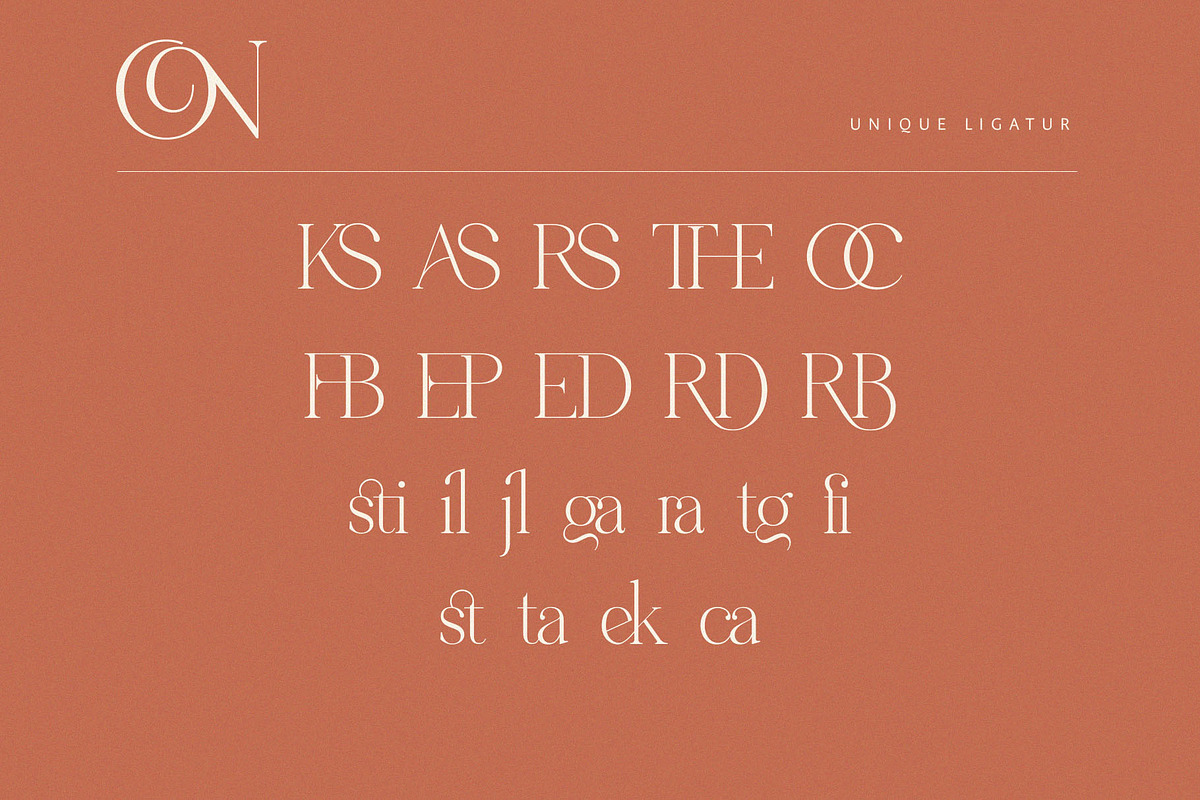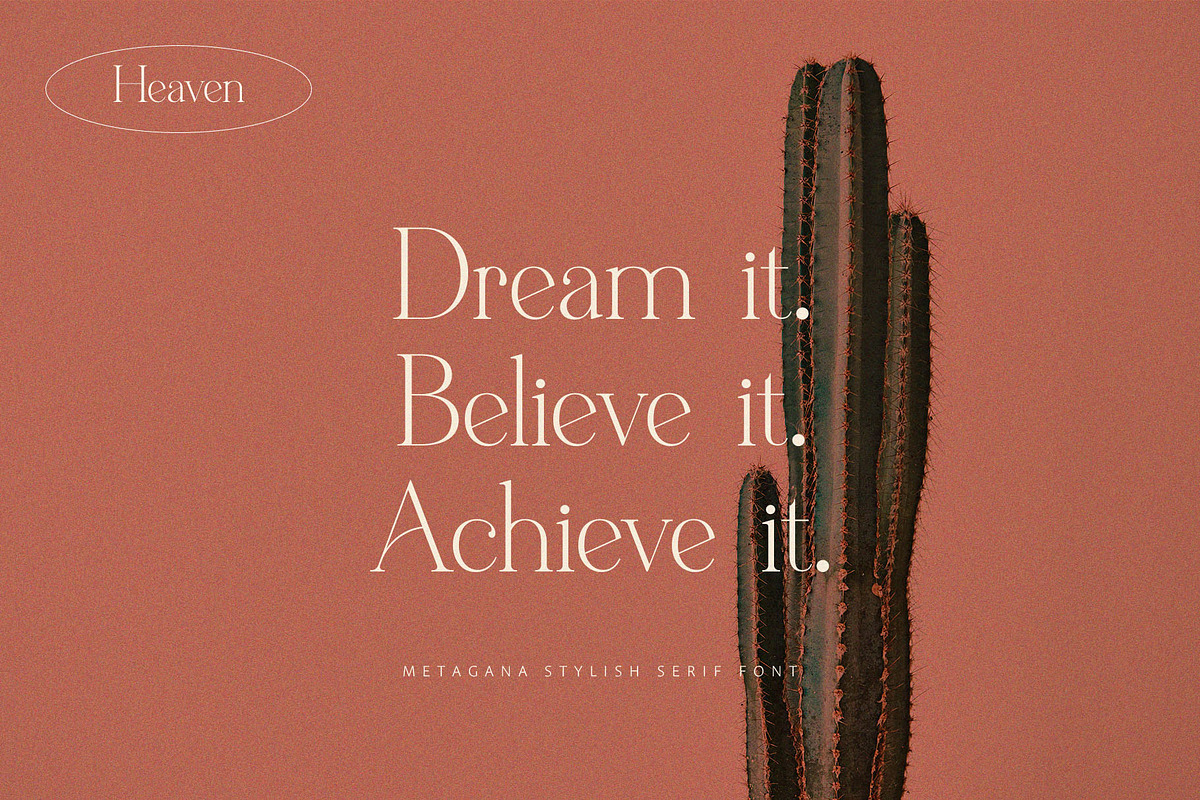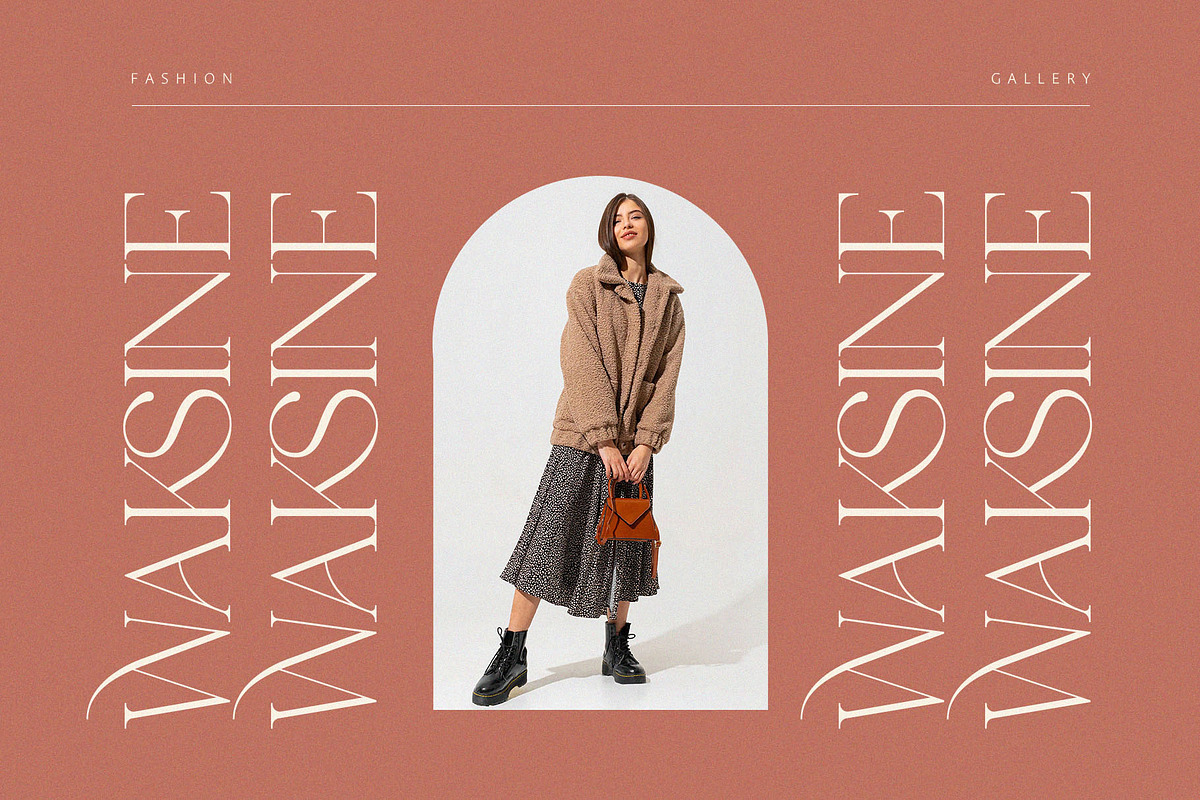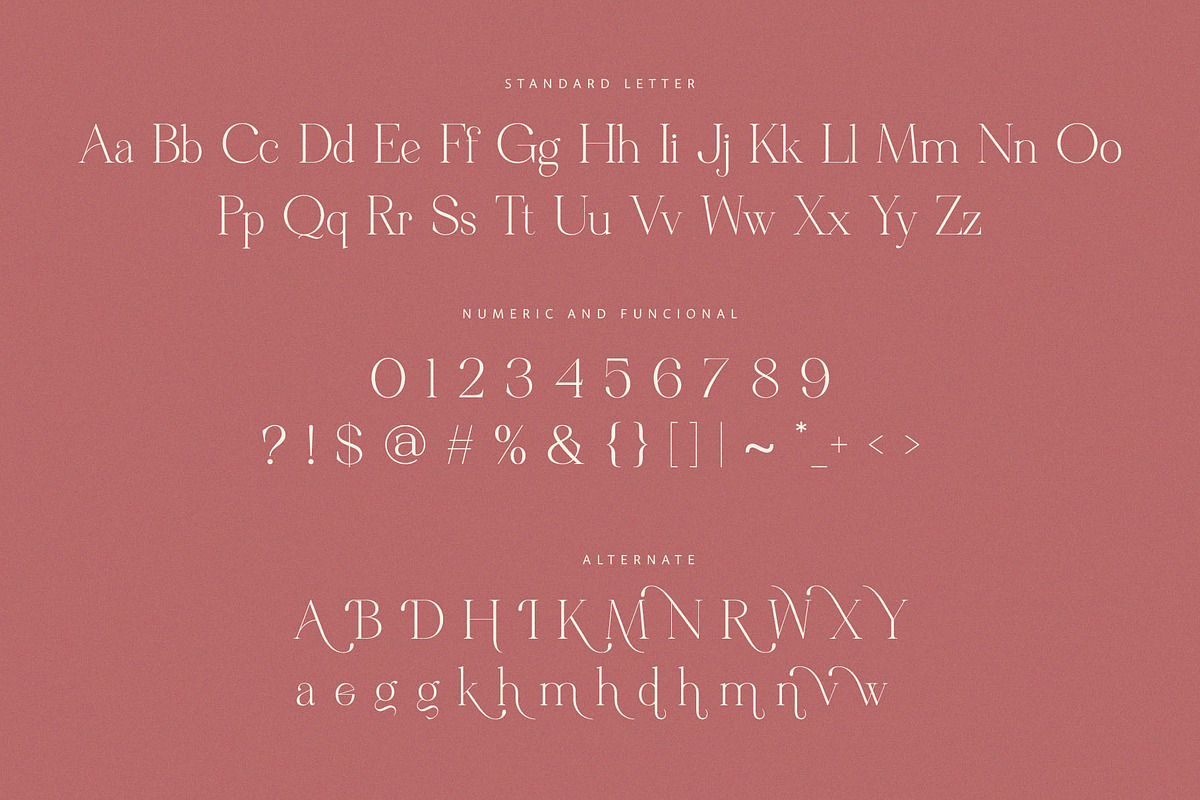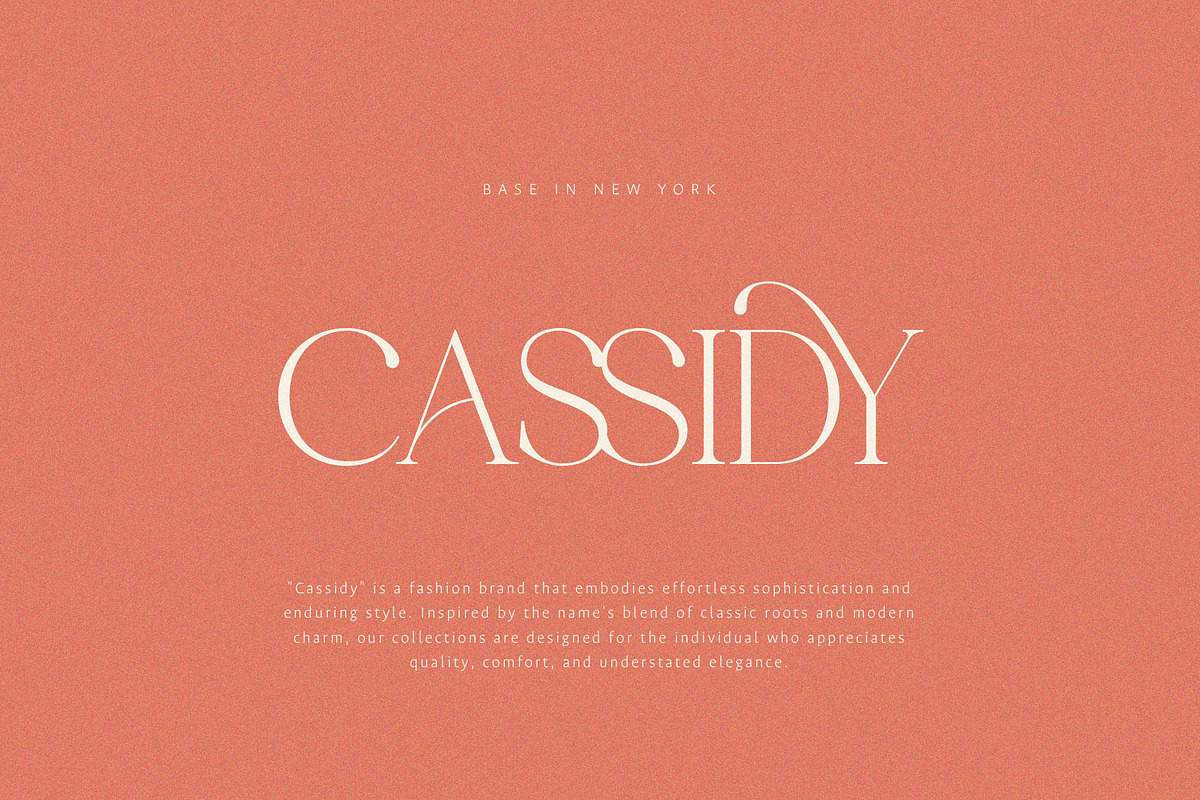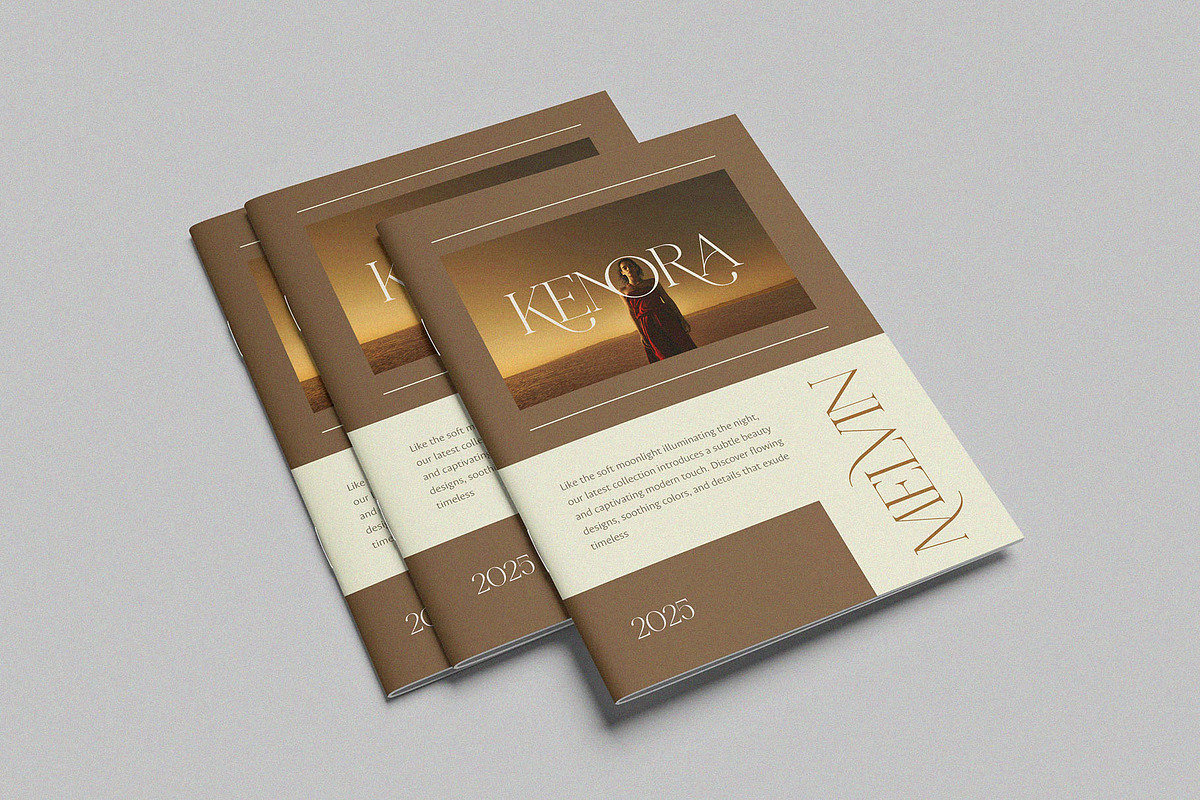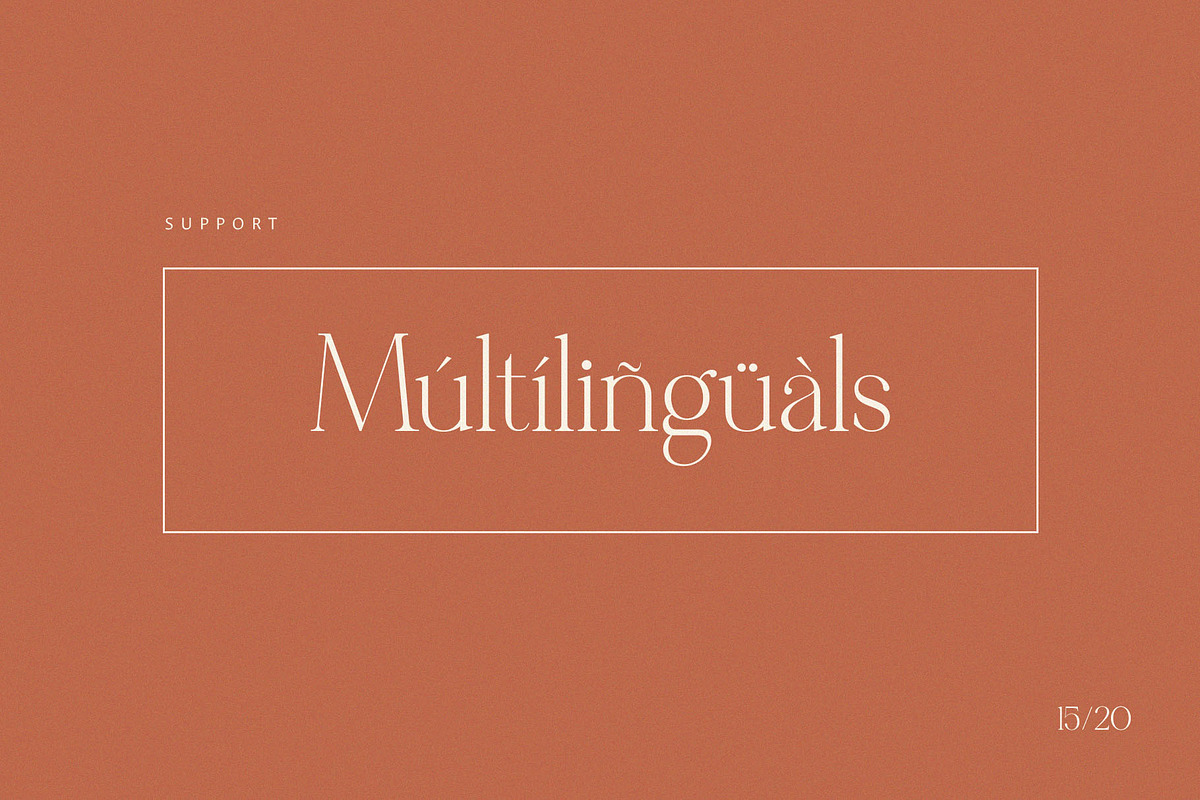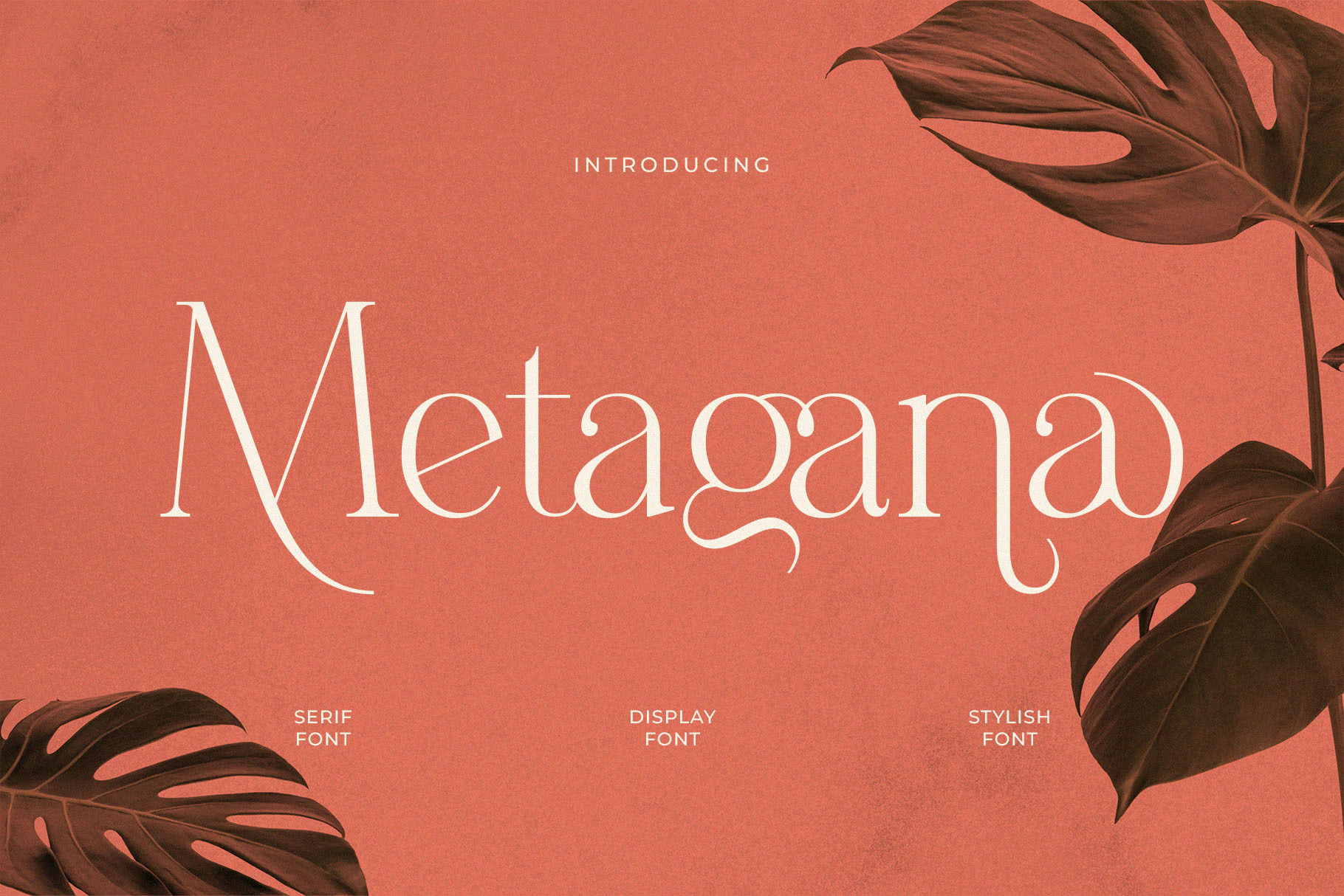
Metagana – Modern Display Serif Font
Introducing Metagana Modern Display Serif Font. Metagana is a modern and classy typeface, best used as a display for headings, logos, branding, magazines, product packaging and invitations. Metagana come with clean lines and smooth curves give any project an extra touch of class.